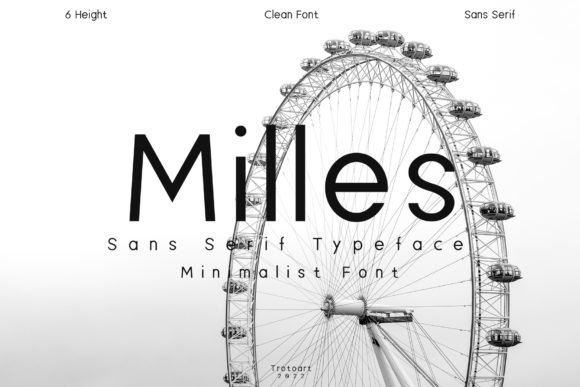
Introducing Milles Font, the ultimate modern sans serif font for meme creation and bold branding. Unleash your creativity and leave an unforgettable impression with this geometric variable font, expertly crafted by Trotoart Design. Milles is your secret weapon for crafting captivating memes that resonate with your audience. Its crisp lines and clean aesthetics bring an edge to your designs, making your memes stand out from the crowd.
With Milles, you'll never compromise on quality. Its versatility extends beyond memes, making it the perfect choice for a wide range of design projects. Whether you're working on branding, publishing, titles, books, magazines, or UI/UX design, Milles effortlessly adapts to your vision. Experience the power of Milles and unlock the full potential of your creative endeavors.
Milles is more than just a font; it's a gateway to a world of boundless creativity. Its clean lines and sharp angles embody the spirit of modern design, adding a touch of sophistication and elegance to your work. Join the league of creative minds who have discovered the transformative power of Milles and elevate your designs to new heights. Unleash your imagination and create designs that resonate, captivate, and inspire.